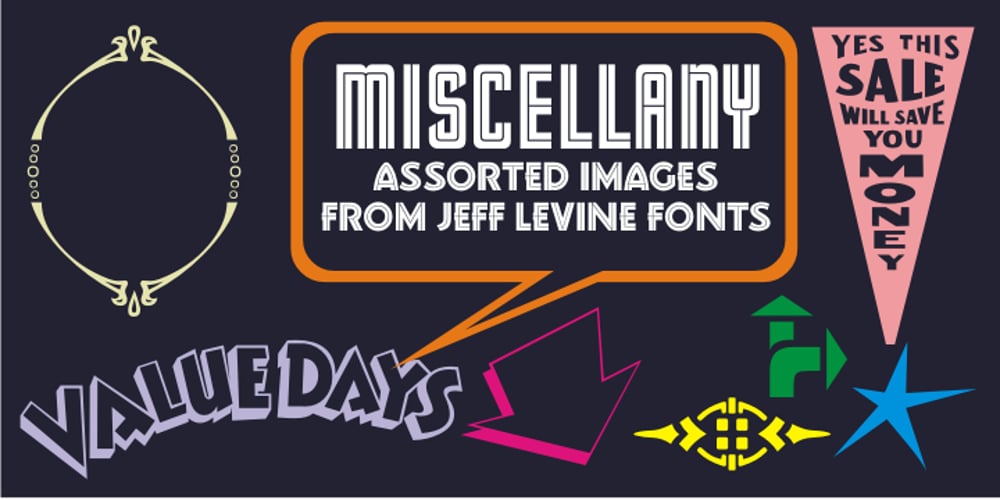
Miscellany JNL
Miscellany JNL font
Miscellany JNL Font Family was designed by Jeff Levine and published by Jeff Levine. Miscellany JNL contains 1 styles and family package options. Miscellany JNL collects numerous images of various genres into one dingbat font. There are vintage stencil patterns, old-time ad cuts and decorations, line spacers [number keys 1 through 7], conversation balloons, parking lot symbols and other assorted goodies.